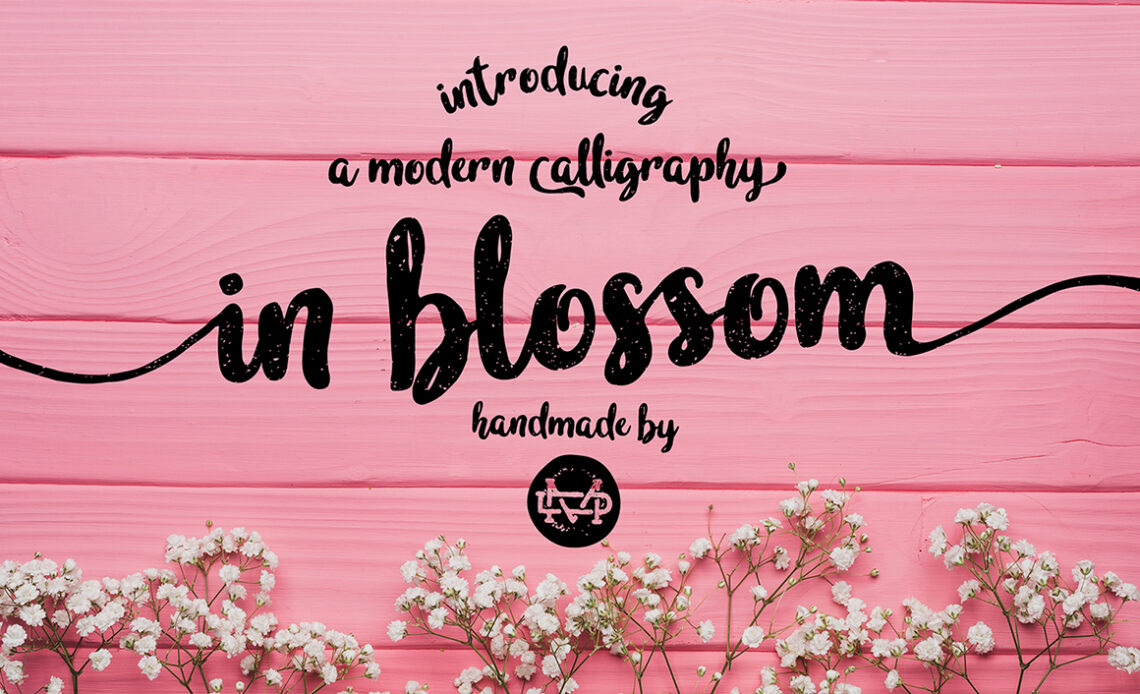
In Blossom Font
Prepare to be swept away by the captivating charm of In Blossom Font, a breathtaking script font that will infuse your designs with a touch of playful elegance and undeniable style. This exquisite font, crafted with meticulous care by the visionary artist madeDeduk, boasts a diverse repertoire of over 350 unique glyphs, unlocking endless possibilities for your creative endeavors.
In Blossom Font's captivating dance of strokes and curves, you'll find a bold handwritten character that exudes confidence and personality. Its sassy demeanor adds a dash of spice to any project, making it perfect for adding a touch of flair to invitations, branding materials, social media posts, and more. Whether you're designing for a special occasion or simply seeking to elevate your everyday creations, In Blossom Font will effortlessly add a touch of magic.
But the enchantment doesn't end there. In Blossom Font comes in two alluring versions: In Blossen and In Blossem Vintage, each with its own distinctive charm. The original In Blossen exudes a modern flair, while In Blossem Vintage carries the timeless allure of yesteryear. Mix and match these fonts to create captivating contrasts or use them individually to achieve a cohesive and polished look.
With In Blossom Font, versatility is not just a buzzword, it's a reality. Its wide range of applications makes it an indispensable tool for any designer's arsenal. From eye-catching headlines to delightful logos, charming posters to heartwarming invitations, In Blossom Font seamlessly adapts to your vision, effortlessly enhancing your designs with its captivating presence.
Don't settle for ordinary fonts that blend into the background. Embrace the allure of In Blossom Font and watch your designs bloom with creativity and flair. Its bold character and versatile nature make it the perfect choice for designers seeking to make a lasting impression.